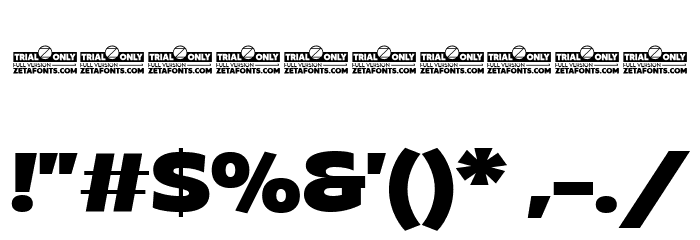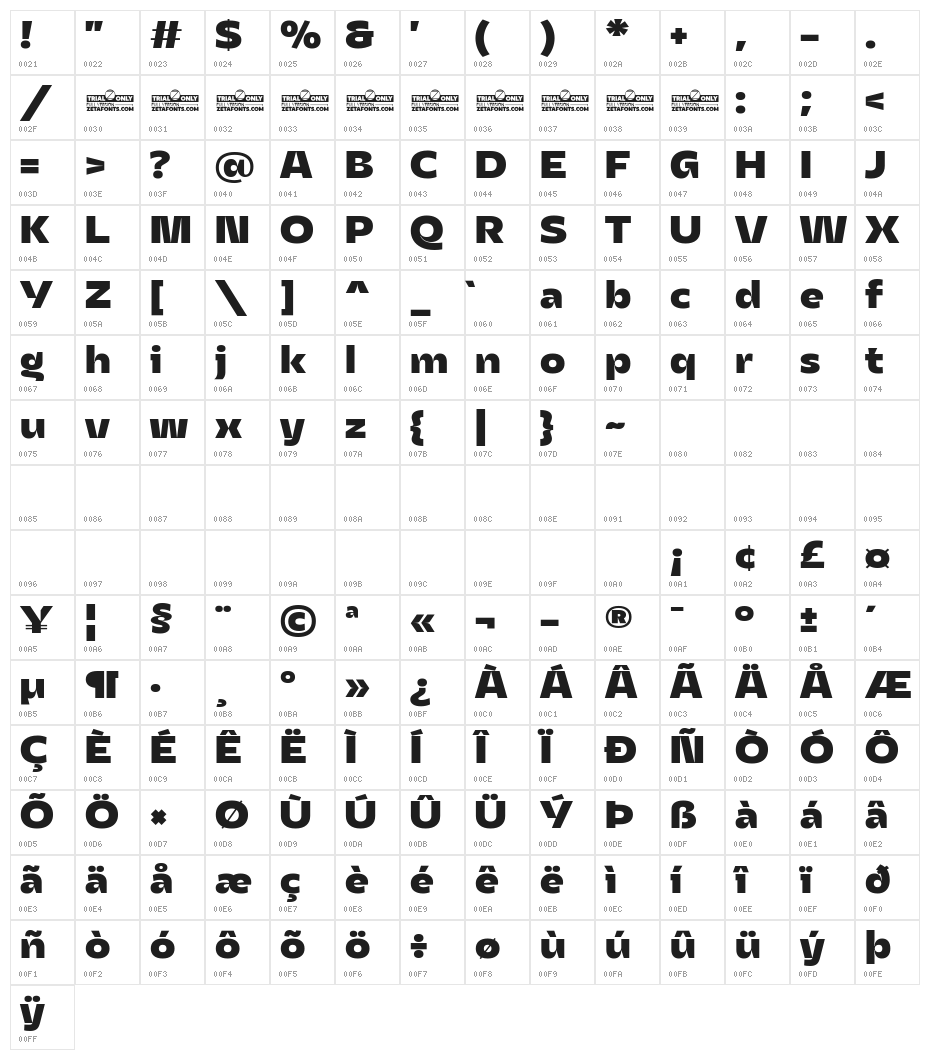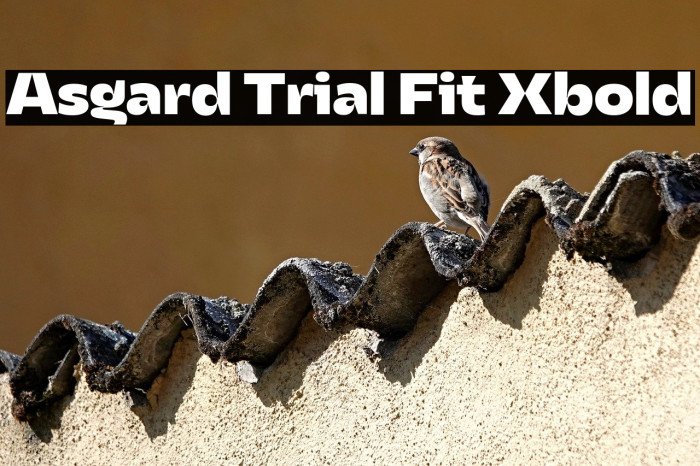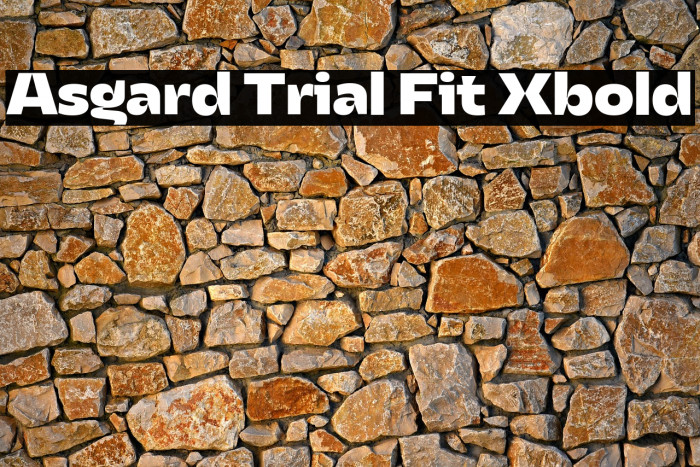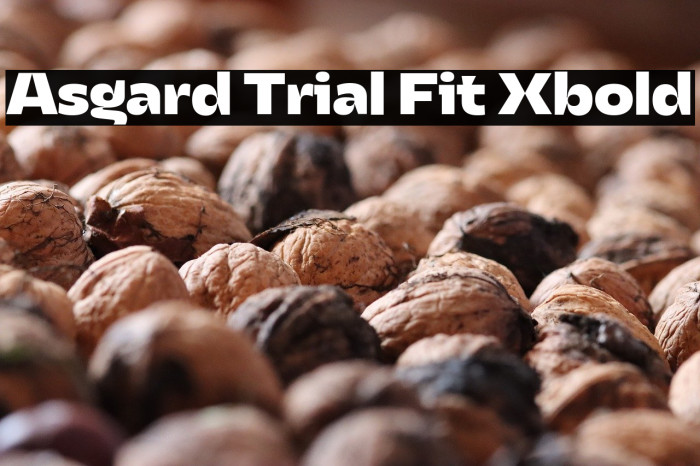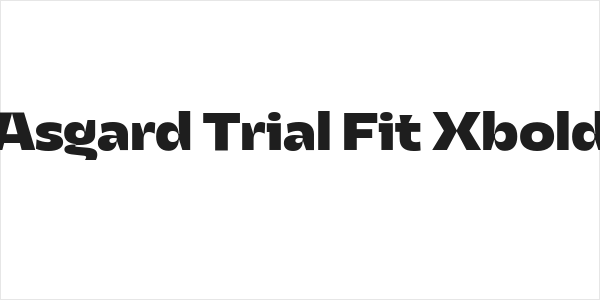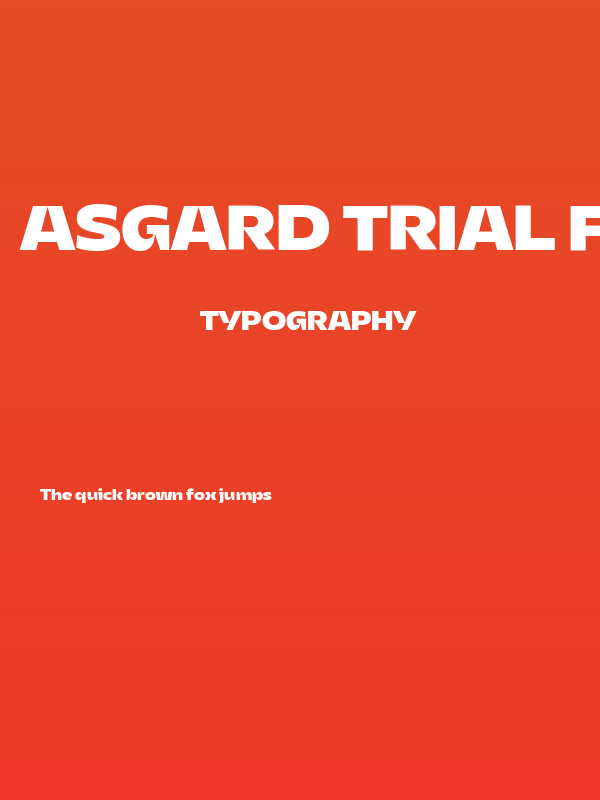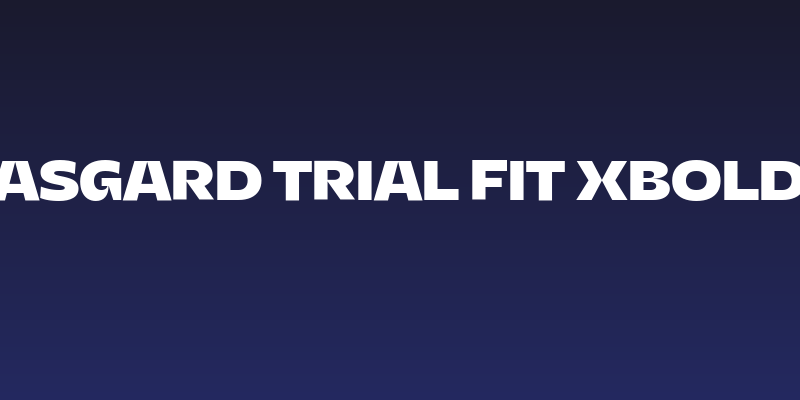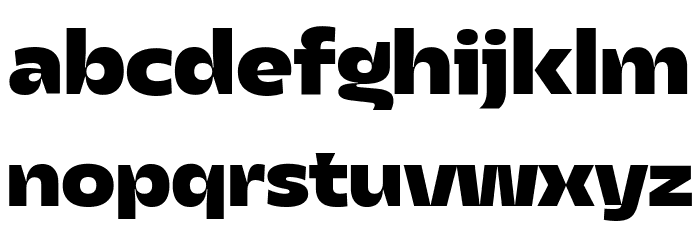
Asgard Trial Fit Xbold Font
Asgard Trial Fit Xbold Description
This font features bold, geometric letterforms with a strong presence. The uppercase and lowercase characters maintain a consistent weight, creating a uniform appearance. The design is modern and clean, with a slight curvature on certain letters, adding a touch of uniqueness. The numbers and special characters follow the same bold style, ensuring coherence across all elements. The font's robust structure makes it highly legible, even at smaller sizes, while its boldness ensures it stands out in any design. Ideal for impactful headlines and branding, this font combines strength with style.
| Proposed Projects | Ideal for branding, headlines, posters, and any design requiring a strong, modern typeface. |